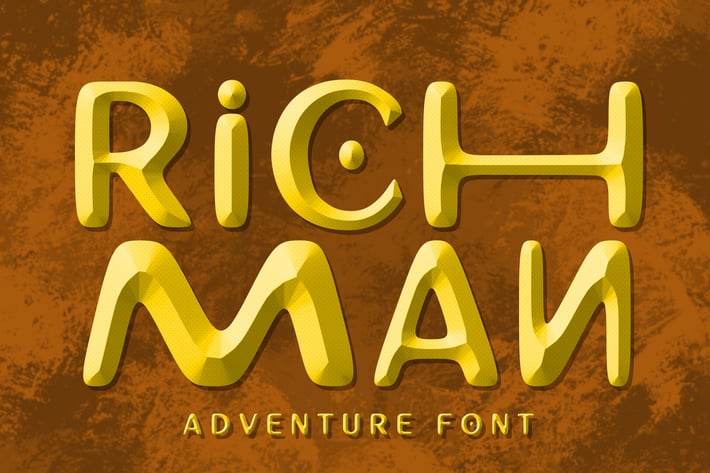
Richman Adventure Font
Richman is very fun font. If you want to make some adventure design, just use this font. This font is good for adventure,zoo,
for education, for school event, for kids tees, and many many others